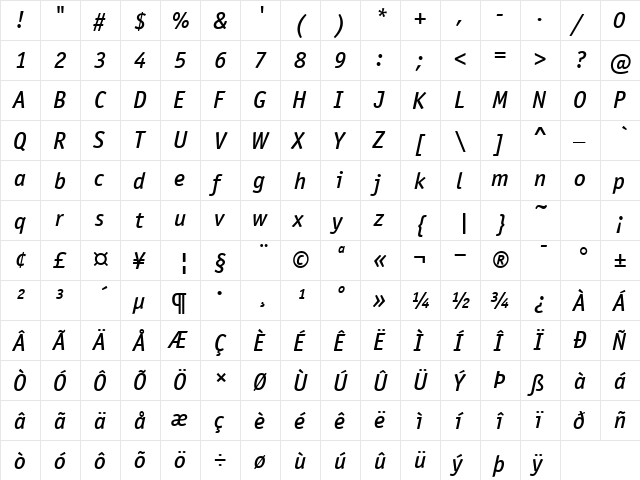
OfficinaSanITCTT MediumItalic
| Foundry | International Typeface Corporation |
| Designer | Erik Spiekermann/Ole Schaefer |
Design Context for OfficinaSanITCTT Typeface
OfficinaSanITCTT takes a measured approach to typography — its balanced proportions and neutral character make it a reliable workhorse for both digital and print work. The dynamic lean of this cut emphasises speed and emphasis in any layout.